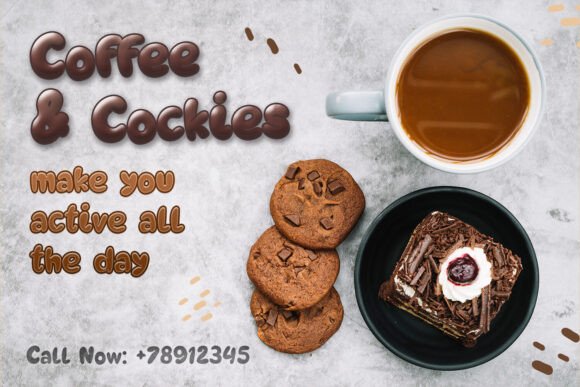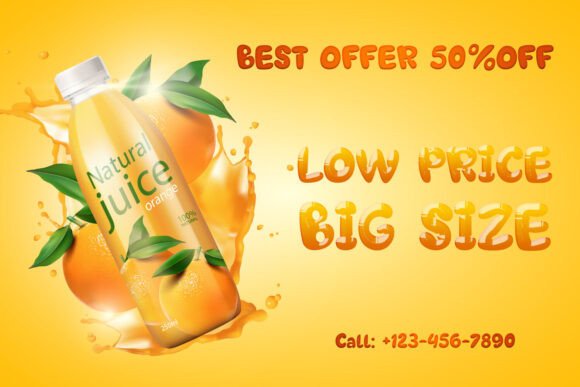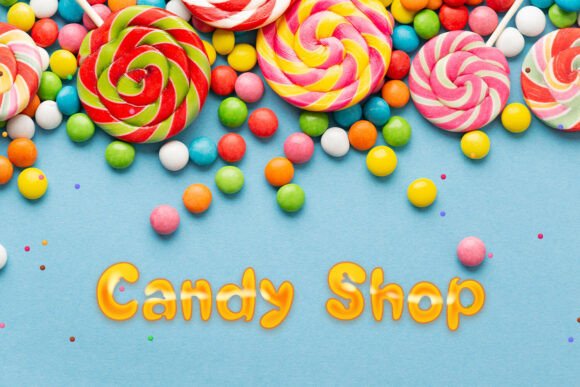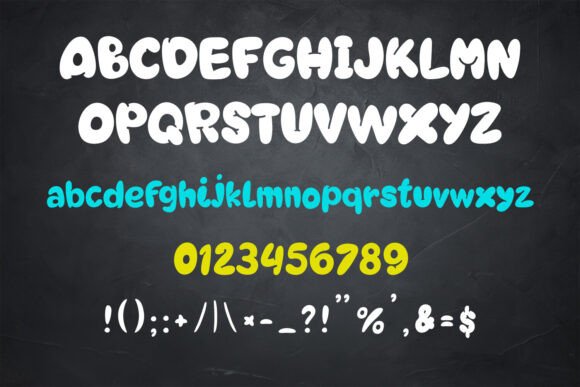
Discover the Playful Charm of Bubbloo Font
Have you ever been in the middle of a design project, and suddenly, you’re stuck on finding the perfect font? I recall a recent experience where a client asked for a playful, bold, and vibrant typeface for their children’s book. The goal was to bring energy and fun to the story, making it appealing to young readers. After scouring through numerous font libraries, I stumbled upon Bubbloo Font, and it instantly became the perfect fit. In this article, we’ll dive into the world of Bubbloo Font, exploring its features, uses, and what makes it a fantastic addition to your design toolkit.
A Personal Review of Bubbloo Font
Let’s get straight to it – I love Bubbloo Font! Here’s what makes it stand out:
- ✨ Playful and Fun: Bubbloo Font is designed to bring a smile to your face. Its bubbly, hand-drawn style is perfect for children’s books, cartoons, party invitations, logos, and creative designs.
- 💥 Attention-Grabbing: Bubbloo Font has an eye-catching charm that adds personality to any digital or print project.
However, no font is perfect, and Bubbloo Font has a few minor quirks:
- 🤔 Limited Formality: Due to its playful nature, Bubbloo Font might not be the best choice for formal or professional projects.
- ⚠️ Legibility at Small Sizes: Like many script fonts, Bubbloo Font can become less legible at very small sizes, so it’s best used at larger sizes or for headlines.
The Backstory of Bubbloo Font
Bubbloo Font was designed with the intention of creating a playful, energetic typeface that would bring joy to designers and their audiences. The designer aimed to craft a font that would be perfect for children’s books, party invitations, and other creative projects. With its bubbly, hand-drawn style, Bubbloo Font has become a popular choice among designers looking to add a touch of whimsy to their work.
| Font Name | Bubbloo Font |
| Author | OWPictures |
- Q: What type of projects is Bubbloo Font best suited for?
- A: Bubbloo Font is perfect for children’s books, cartoons, party invitations, logos, and creative designs.
- Q: Is Bubbloo Font available in different styles or weights?
- A: Currently, Bubbloo Font is available in a single style. However, the designer may release additional variations in the future.